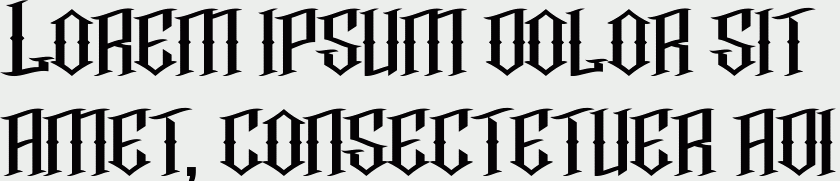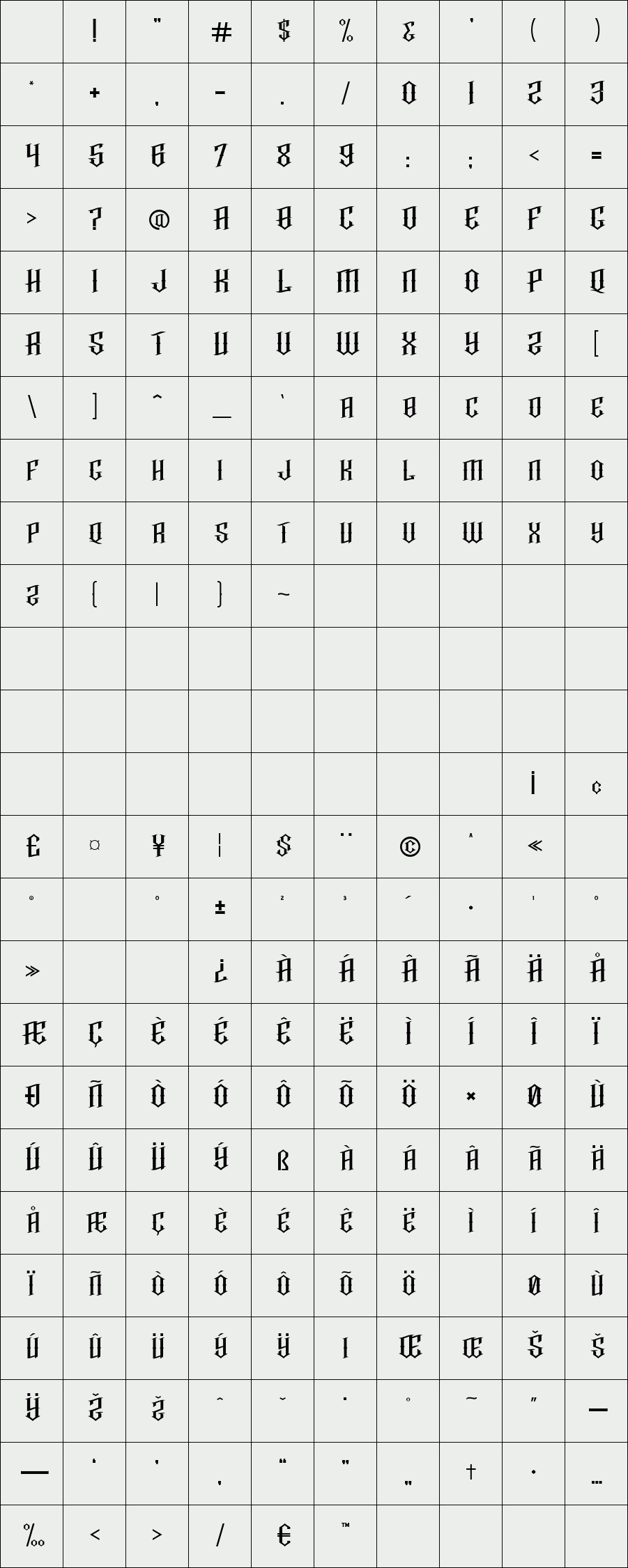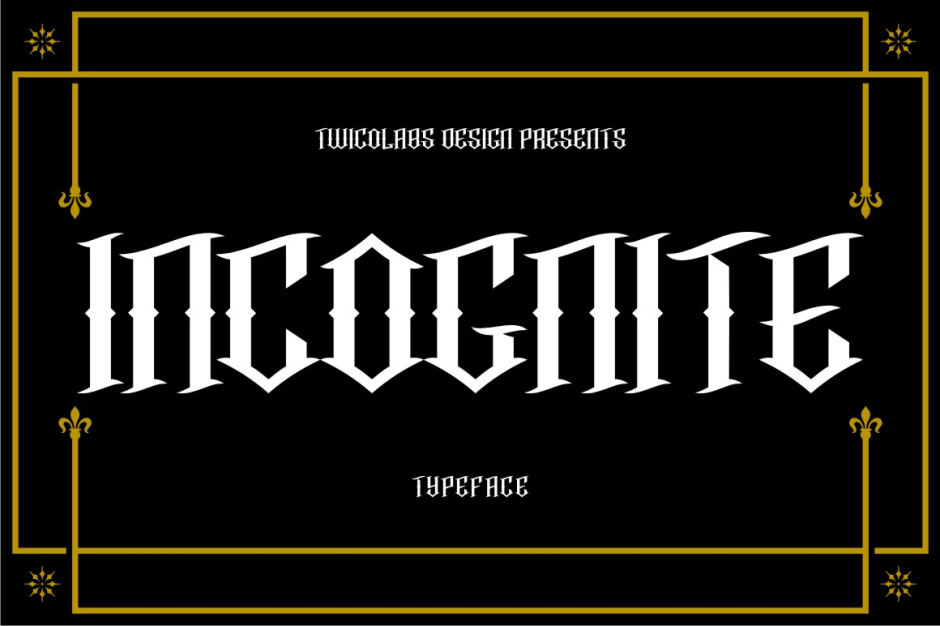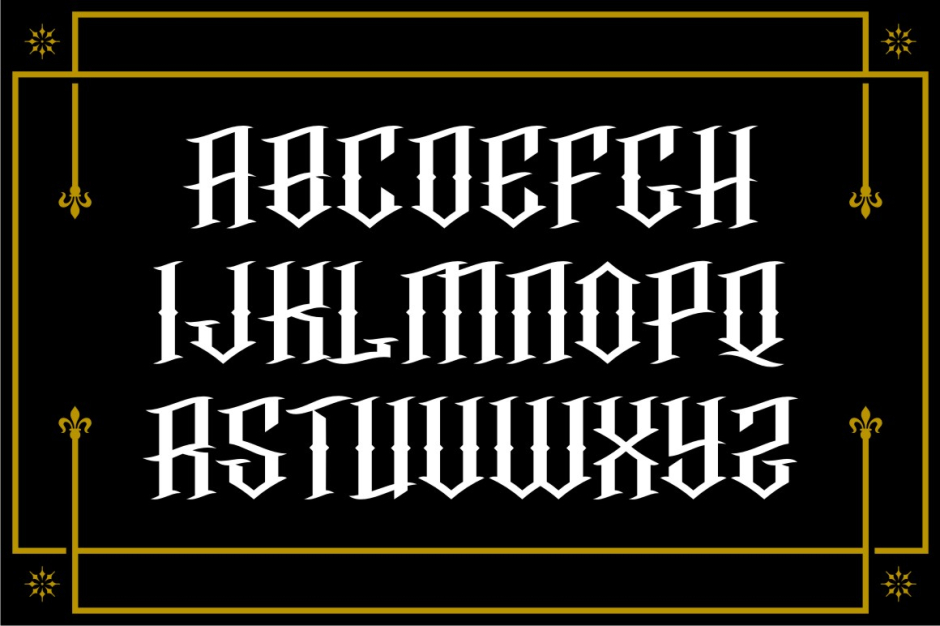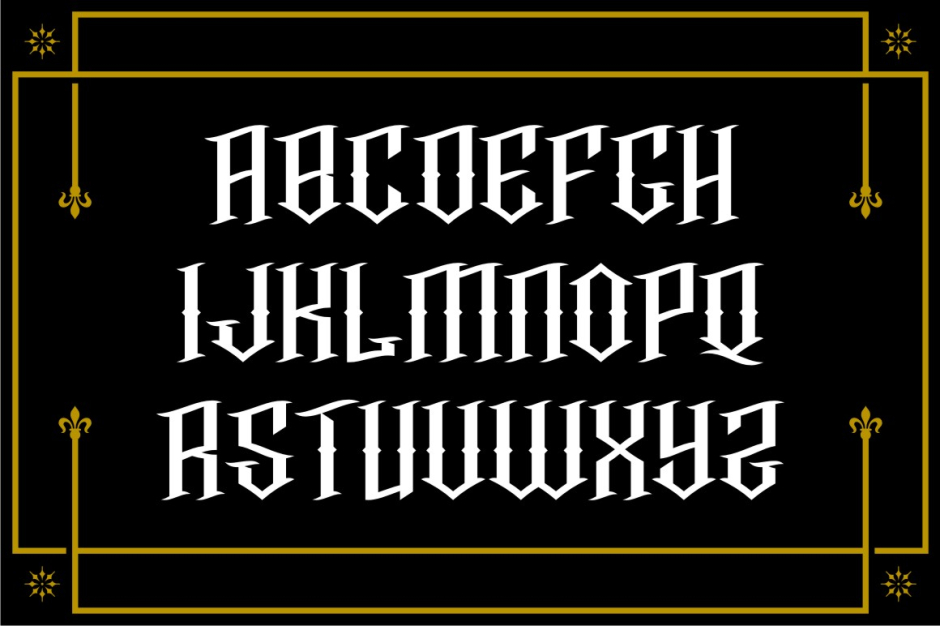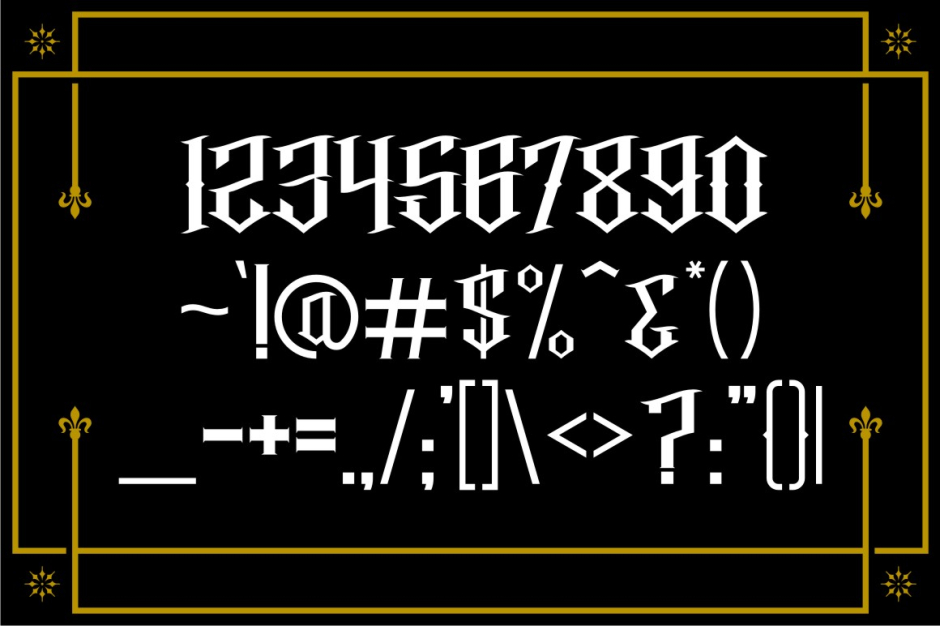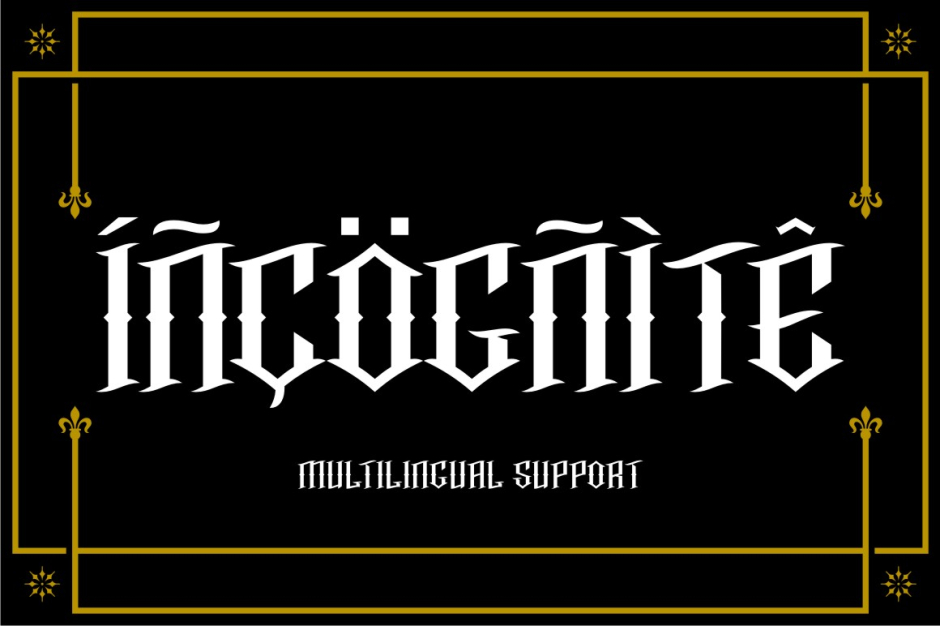
Incognite
Incognite is a mix of blackletter and Mexican tattoo letters style.
unlike its brother, Incognito ( http://www.hellofont.com/fonts/547 ), this one comes with diagonal top.
Available in UPPERCASE, lowercase, numerals, punctuations and multilingual languages.
unlike its brother, Incognito ( http://www.hellofont.com/fonts/547 ), this one comes with diagonal top.
Available in UPPERCASE, lowercase, numerals, punctuations and multilingual languages.